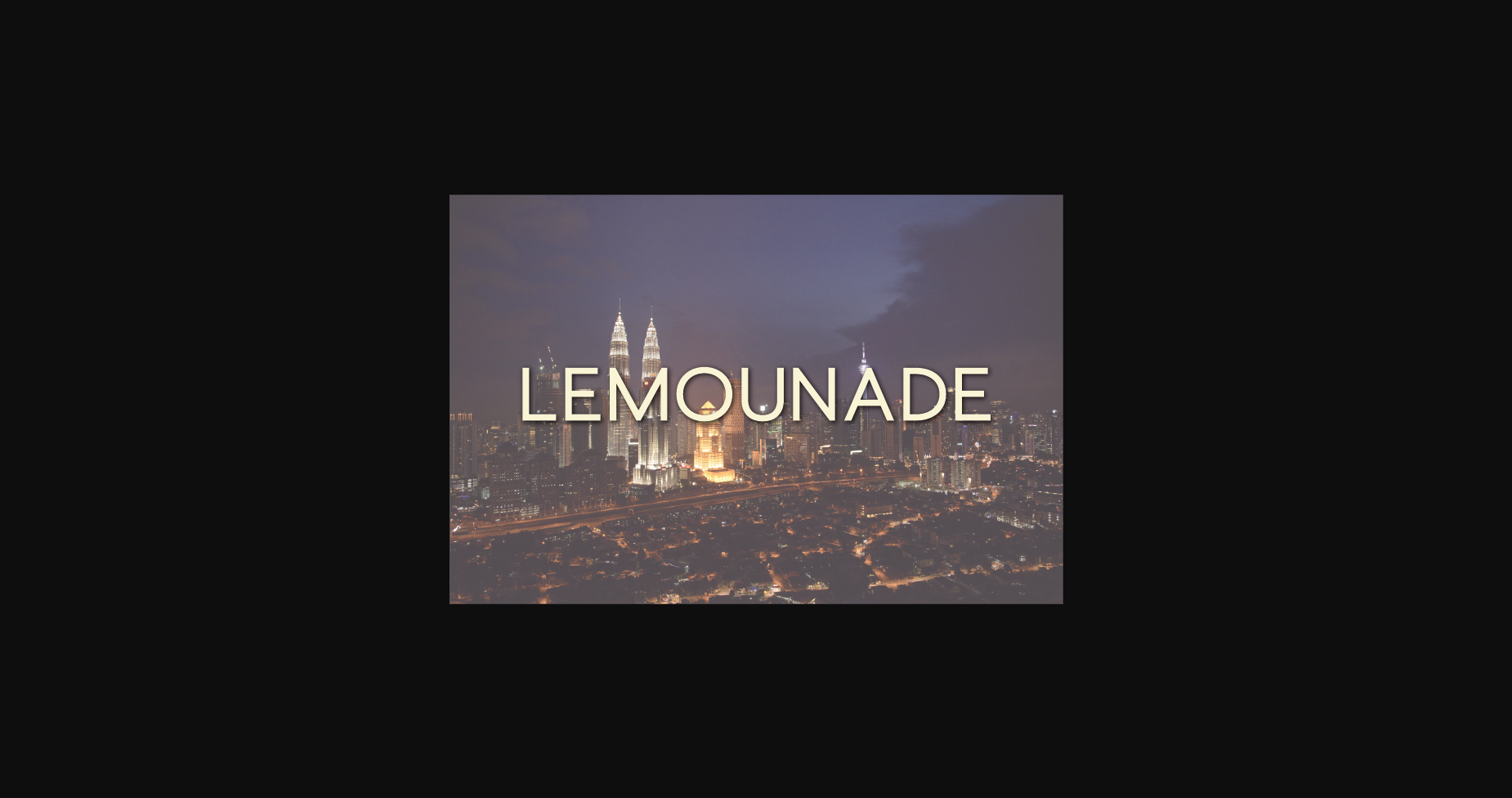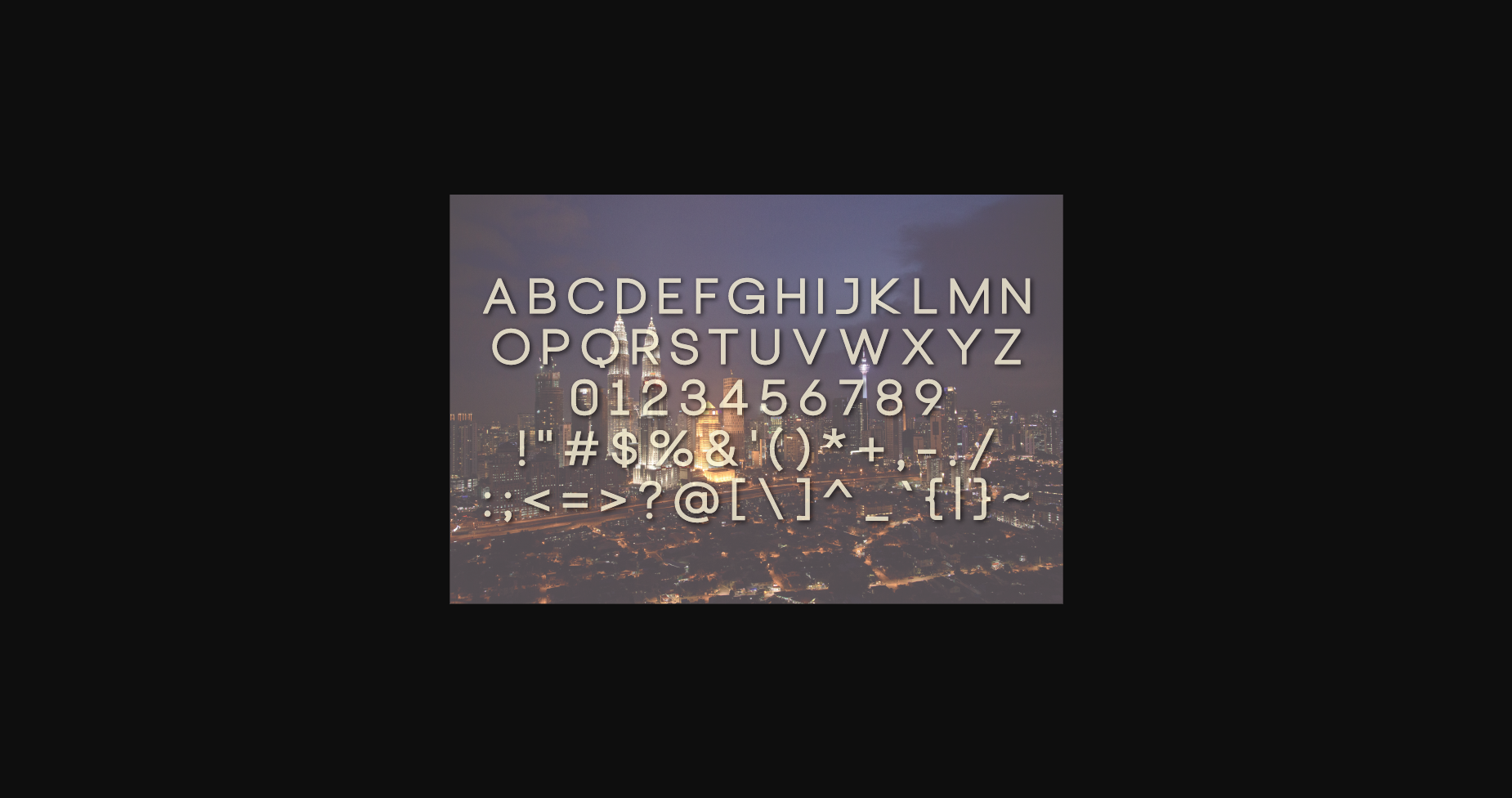
Lemounade Font
About Lemounade Font
Lemounade is a minimal and neat sans serif font. It can easily be matched to an incredibly large set of projects, so add it to your creative ideas and notice how it makes them stand out!